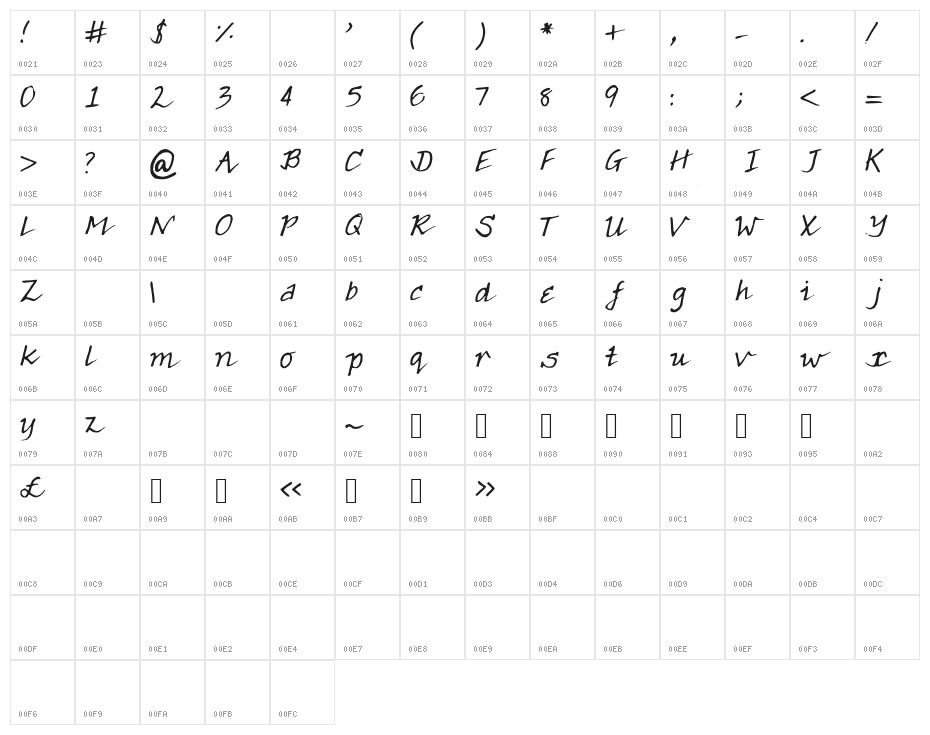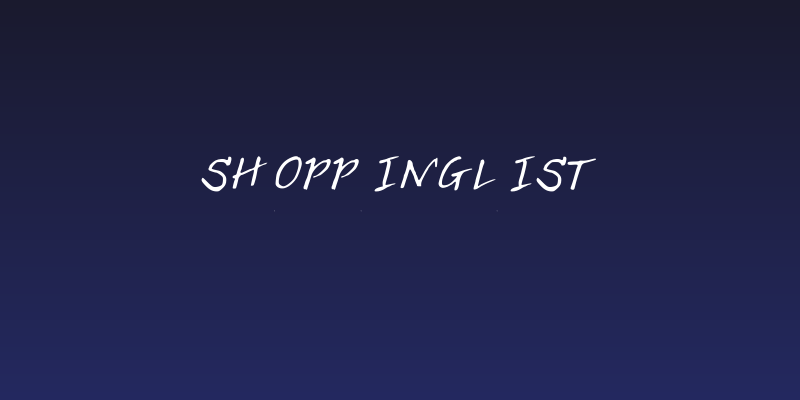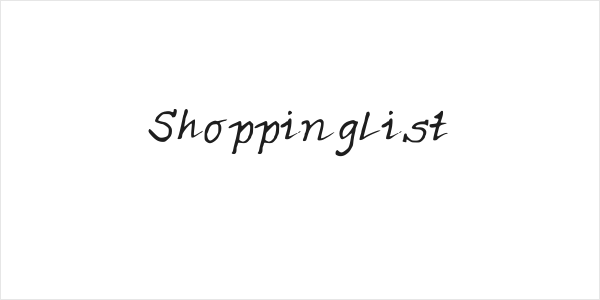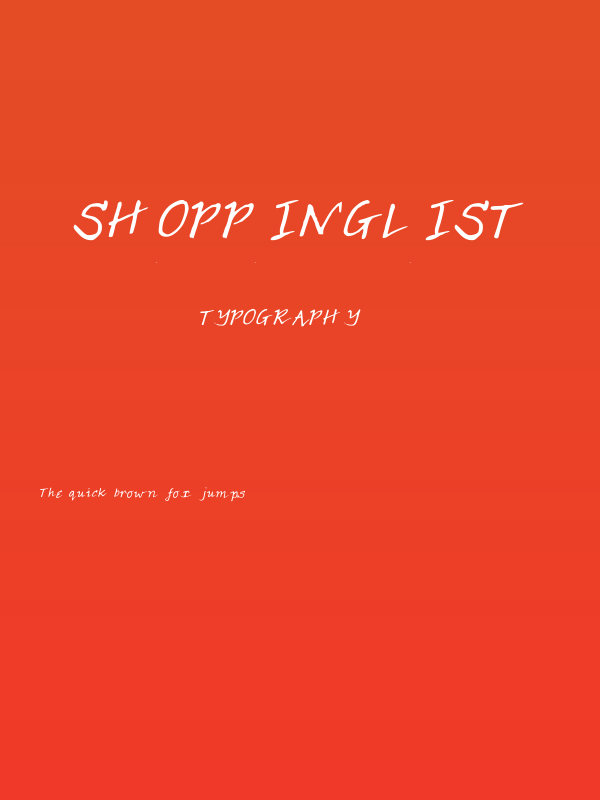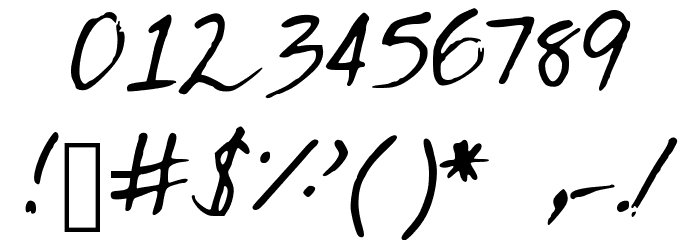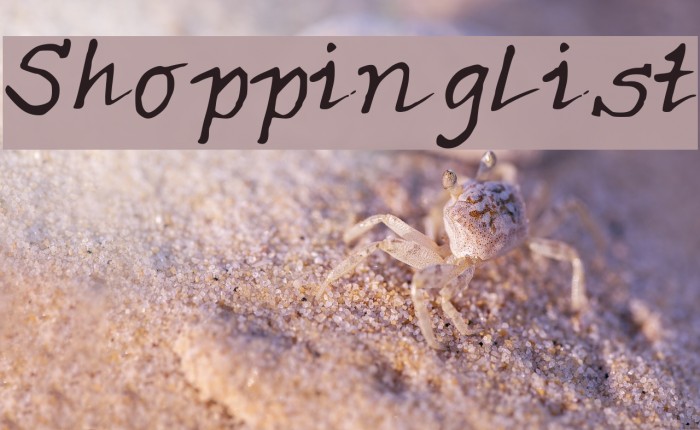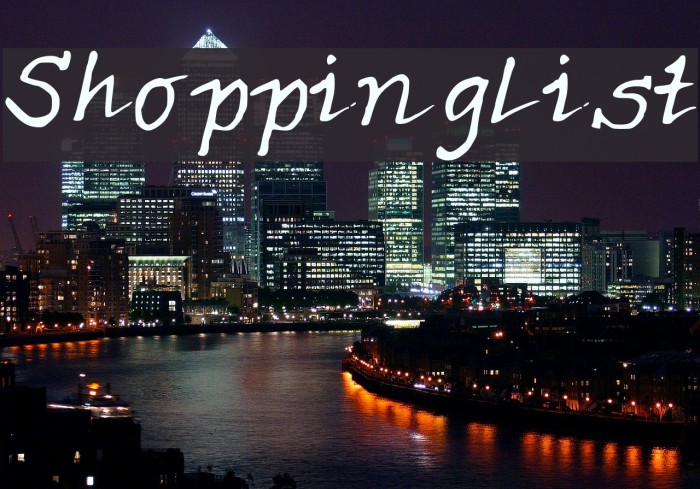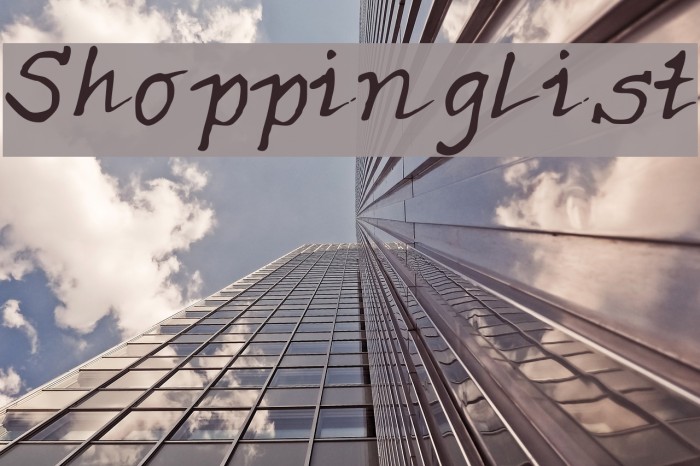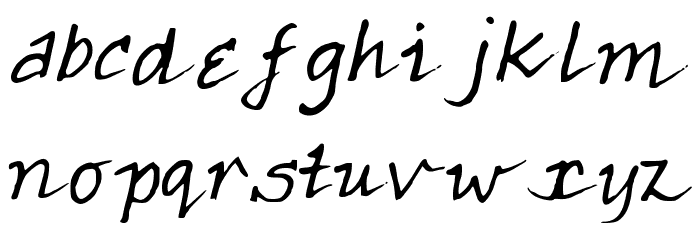
ShoppingList Font
ShoppingList Description
This font features a dynamic and fluid script style, characterized by its handwritten appearance. The letters are slightly slanted, giving a sense of motion and elegance. The uppercase letters are bold and prominent, while the lowercase letters maintain a consistent flow, enhancing readability. Numbers and special characters are crafted with the same fluidity, ensuring a cohesive look across all text elements. The strokes vary in thickness, adding a natural and organic feel to the design. This font is ideal for projects that require a personal touch, such as invitations, greeting cards, or branding materials that aim to convey warmth and approachability.
SHOPPINGLIST UPPERCASE
SHOPPINGLIST LOWERCASE
SHOPPINGLIST OTHER CHARS